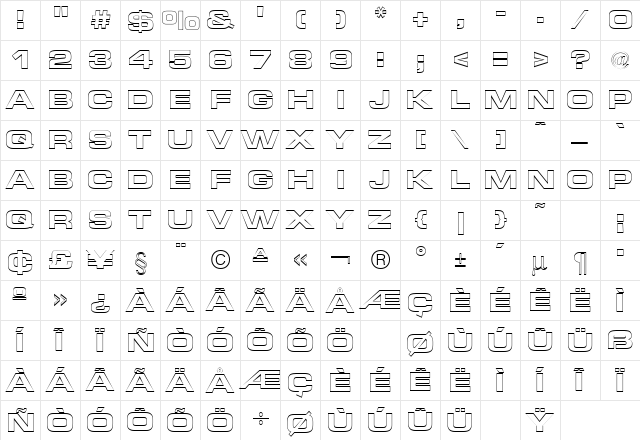
Micro Technic Extended Outline Bold
Design Context for Micro Technic Extended Outline Typeface
Micro Technic Extended Outline has a distinctly futuristic character, with geometric precision and clean angles that feel at home in technology, gaming, and sci-fi contexts. Its bold stroke weight gives it real presence on the page.
Pro Tip: Use Micro Technic Extended Outline in combination with a neutral sans for body text. Let it define the brand voice in headlines while keeping reading comfortable elsewhere.